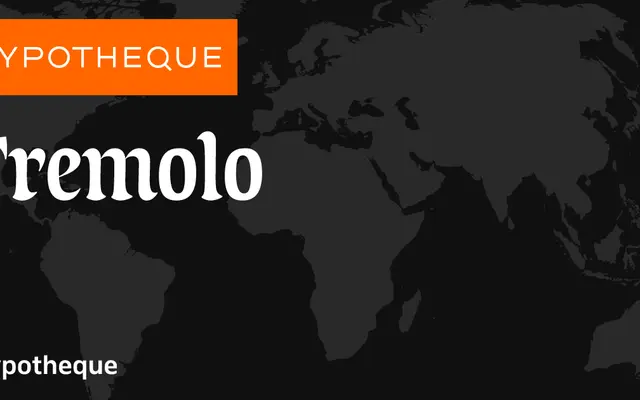
Tremolo
A layered display type system from Typotheque comprising stencil, shadow and gradient variants alongside a companion sans family.
Tremolo is built as a modular system rather than a single typeface, with distinct subfamilies for stencil, shadow and gradient effects that can be overlaid or used independently. The companion Tremolo Sans spans five weights from Thin to Bold with matching italics, providing a functional counterpart to the more expressive display cuts. The system is organised into named packages, suggesting a city-based licensing or bundle structure.
Tremolo is positioned as a display typeface with a layered system including stencil, shadow, and gradient variants, indicating a decorative display orientation. The presence of a companion sans subfamily suggests a broader display type system.